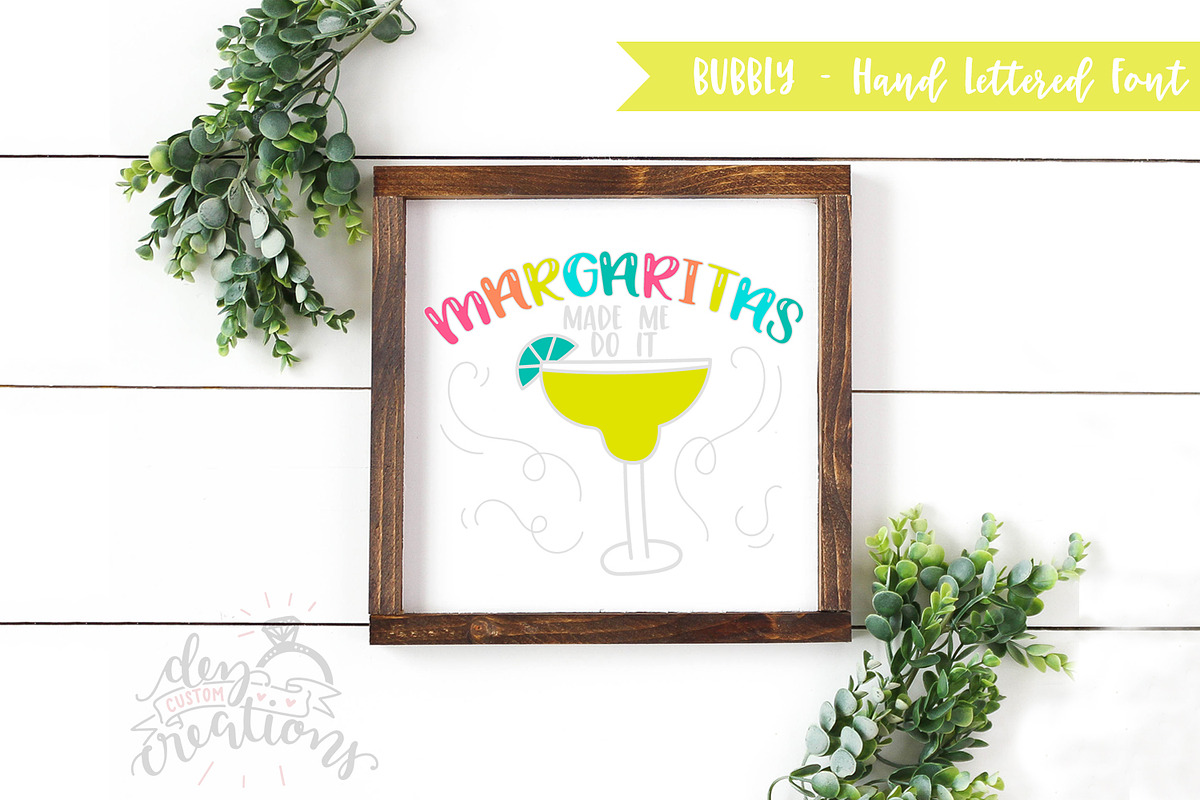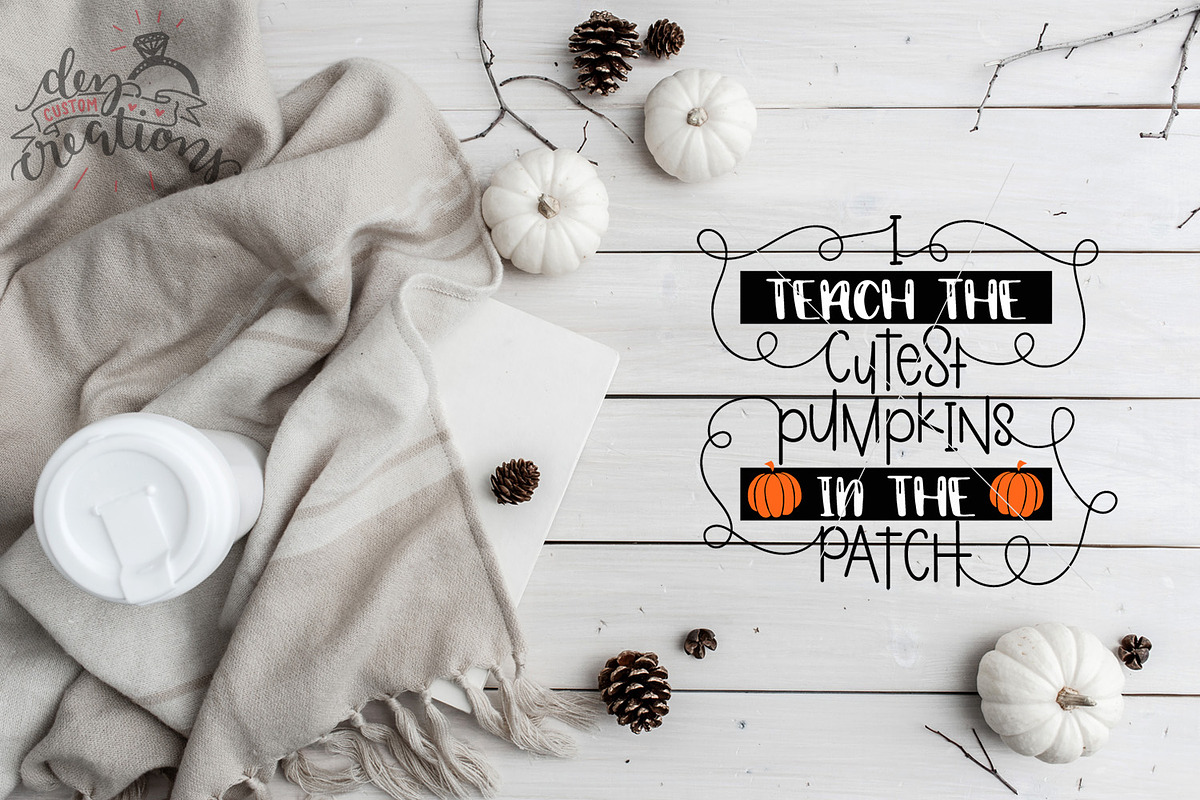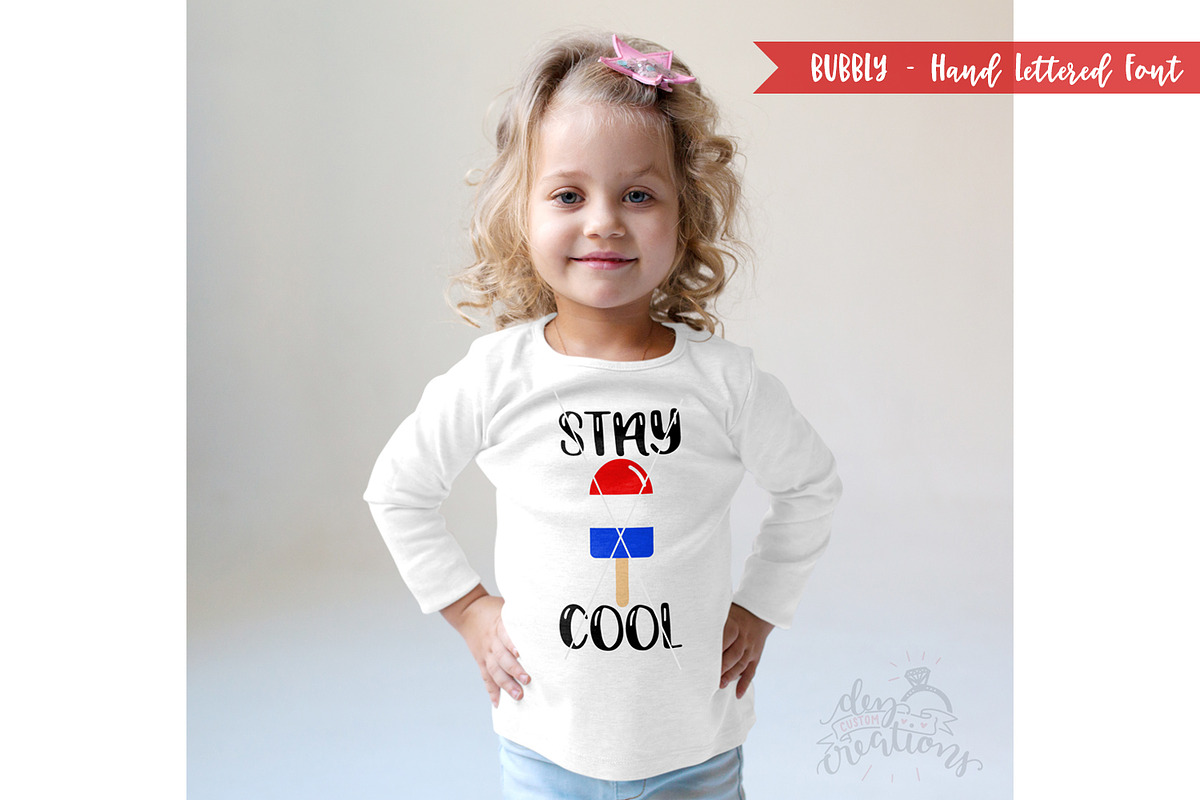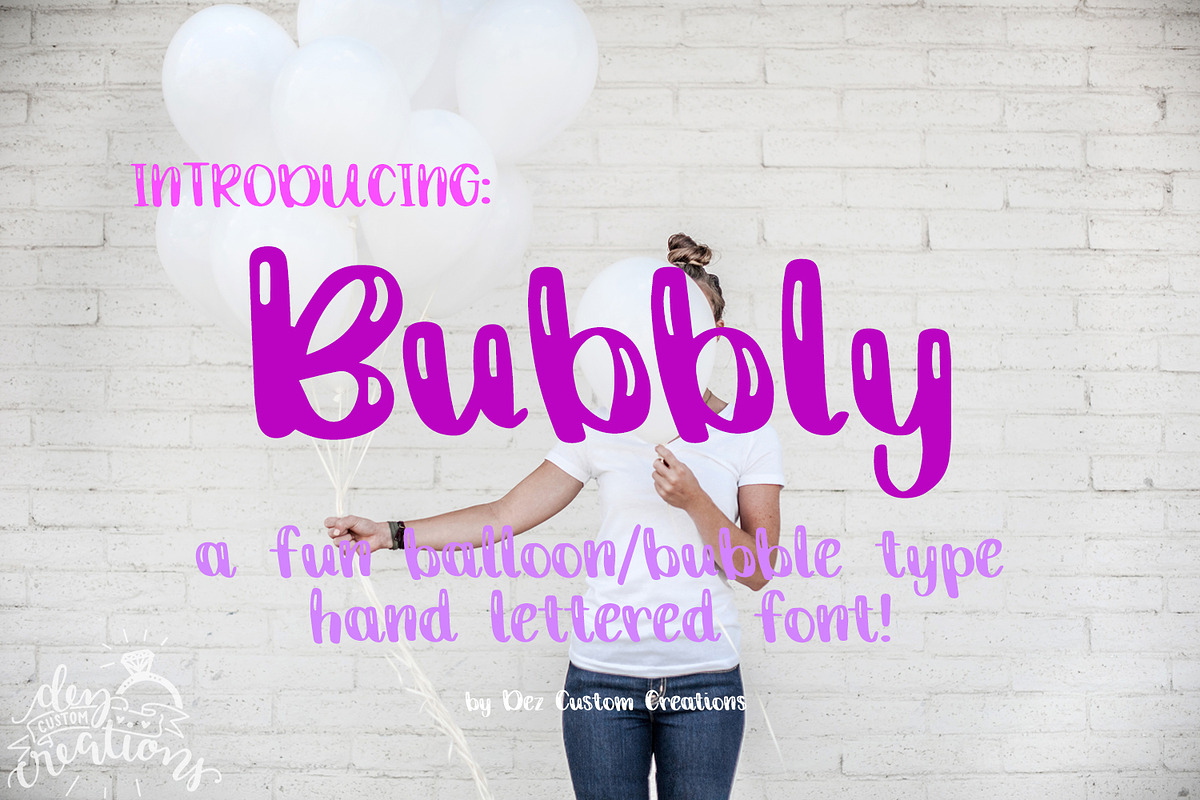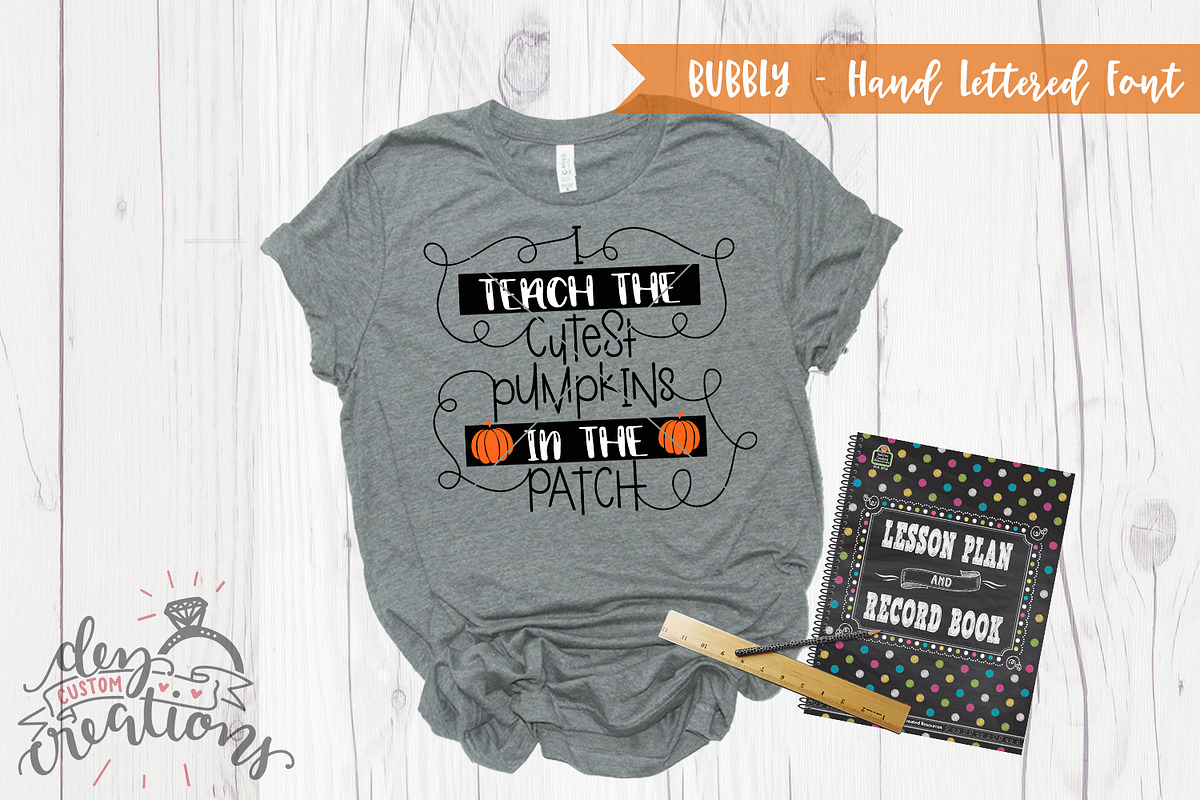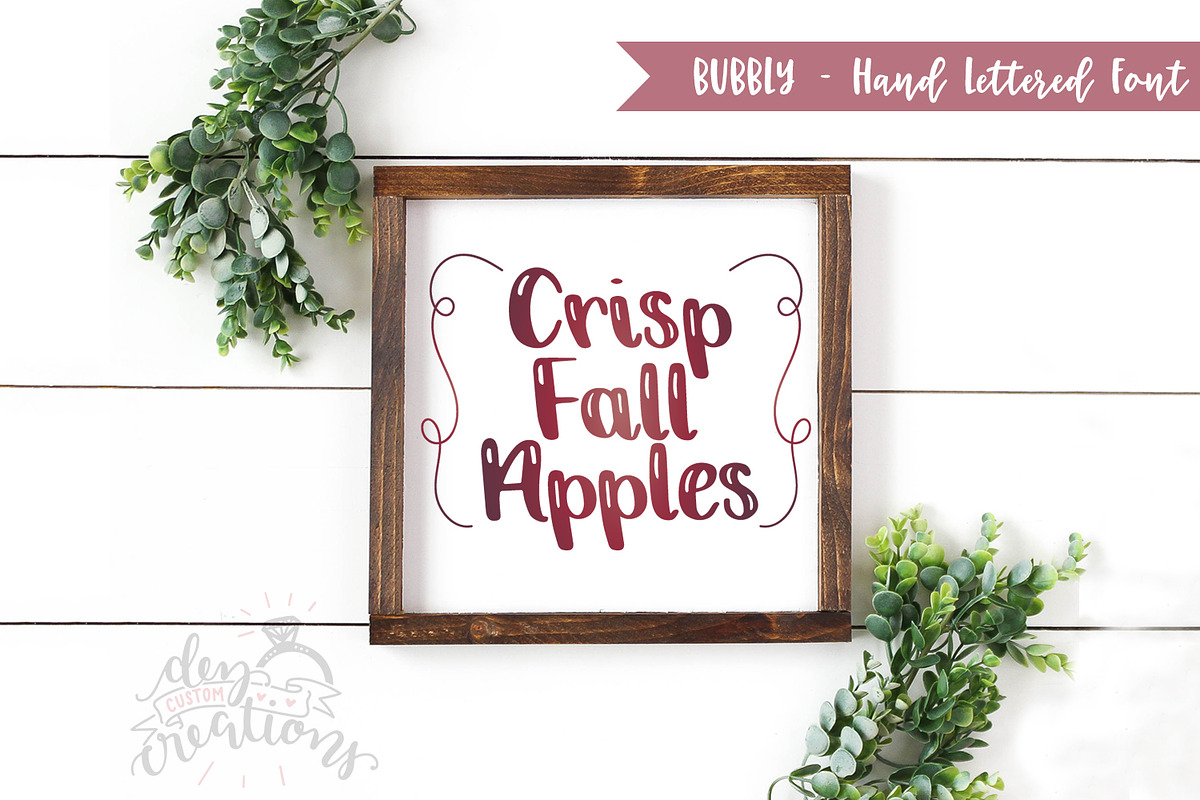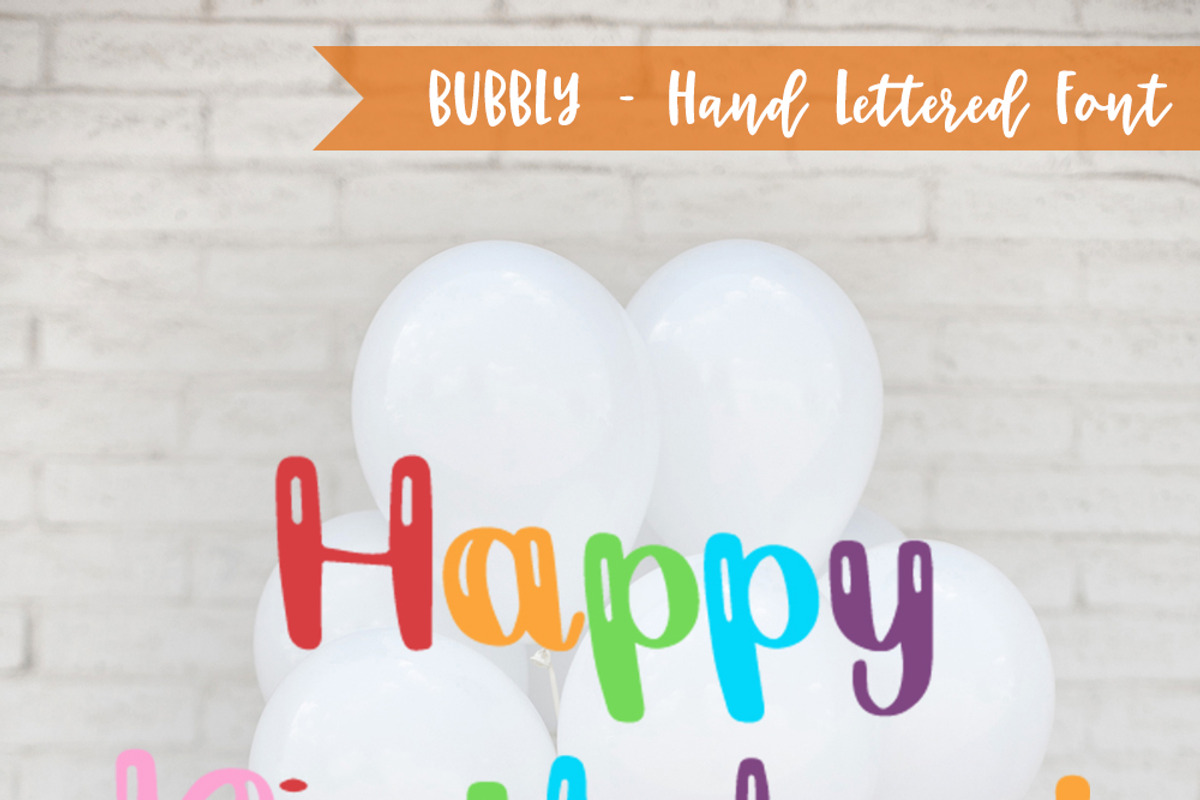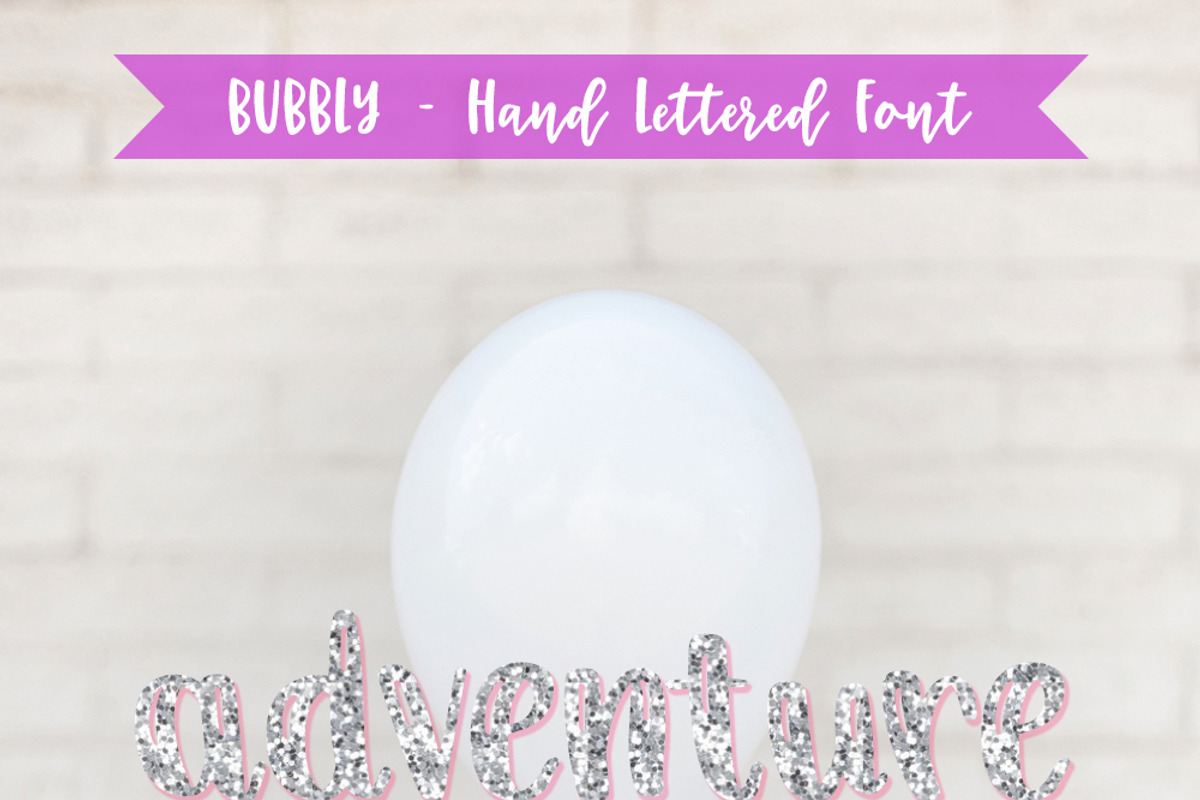
Bubbly - A Hand lettered Font
'Bubbly' is a super fun font that is hand lettered by me. The characteristics of this font give off a fun bubbly feel that will make your work enticing to view. :D This font looks great on T-shirts, mugs, cards and so much more! Comes with Uppercase, Lowercase, Numeral, Punctuation and ALL Accents.